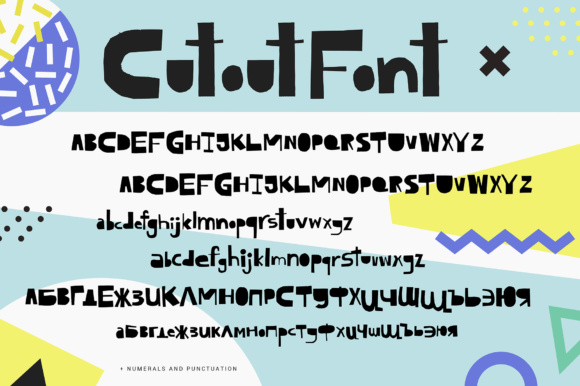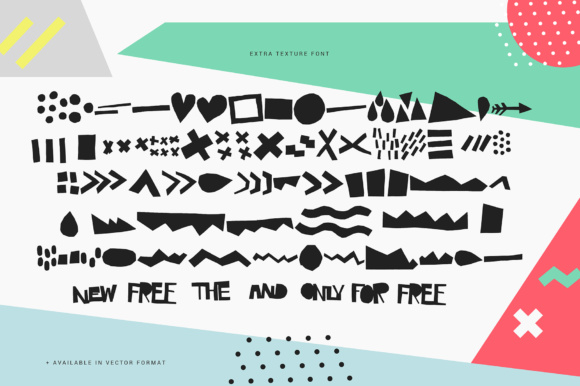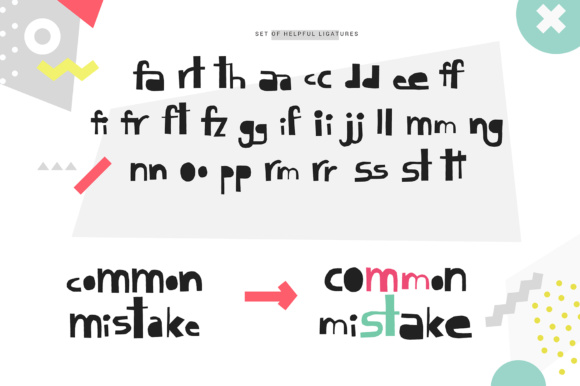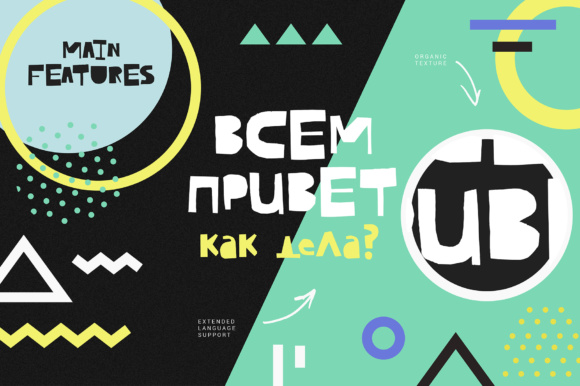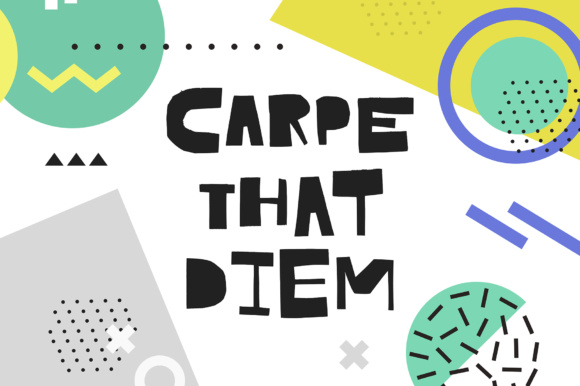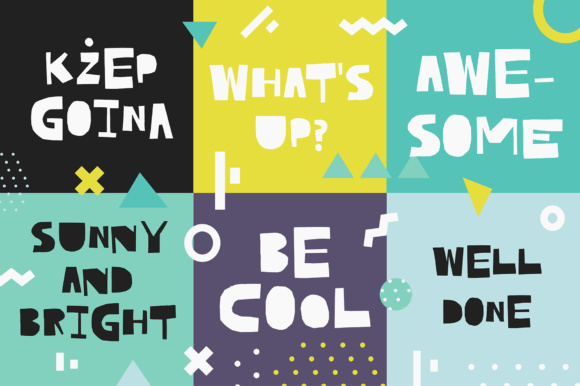
The Cutout Font: A Bold and Organic Choice for Creative Projects
I’ll never forget the time I was working on a poster design project for a local music festival. I had a clear vision of what I wanted to create – a bold, eye-catching title that would grab attention from a distance. But, as I began to scroll through my font library, I found myself stuck. Nothing seemed quite right. That was when I stumbled upon the Cutout font. Its unique, organic edges immediately caught my eye, and I knew I had found the perfect fit. In this article, I’ll share my experience with the Cutout font, its features, and how to make the most of it in your designs.
A First Look at the Cutout Font
The Cutout font is a bold, attention-grabbing typeface with organic edges that give it a distinctive, hand-crafted feel. It’s perfect for projects where you need to make a statement, such as posters, book covers, apparel design, and more. As a bonus, the Cutout font also comes with an additional cutout textures font, which allows you to add amazing textures to your designs quickly and easily.
My Honest Review of the Cutout Font
Here’s what I love about the Cutout font:
- ✨ Unique and eye-catching design: The Cutout font’s organic edges give it a one-of-a-kind look that’s sure to grab attention.
- ✅ Highly versatile: The font is suitable for a wide range of projects, from posters and book covers to apparel design and more.
However, I did notice a few small quirks:
- 🤔 Limited use in small sizes: Due to its bold design, the Cutout font may not be the best choice for small text sizes or body copy.
- ⚠️ Some glyphs may require manual adjustment: Depending on the project, you may need to manually adjust certain glyphs to ensure they fit together seamlessly.
- Experiment with the font’s OpenType features, such as glyphs and stylistic alternates, to add texture and interest to your design.
- Explore the font’s OpenType features, such as glyphs and stylistic alternates, to add depth and visual interest to your design.
The Designer Inspiration Behind the Cutout Font
The Cutout font was inspired by the work of famous designers who sought to push the boundaries of typography. The font’s unique, organic edges were influenced by hand-drawn lettering and the imperfections that come with it. The result is a bold, eye-catching font that’s perfect for creative projects.
| Font Name | Cutout Font |
| Author | Favete Art |
| What is the Cutout font? | The Cutout font is a bold, attention-grabbing typeface with organic edges that give it a distinctive, hand-crafted feel. |
| What is the Cutout textures font? | The Cutout textures font is a bonus font that comes with the Cutout font, allowing you to add amazing textures to your designs quickly and easily. |